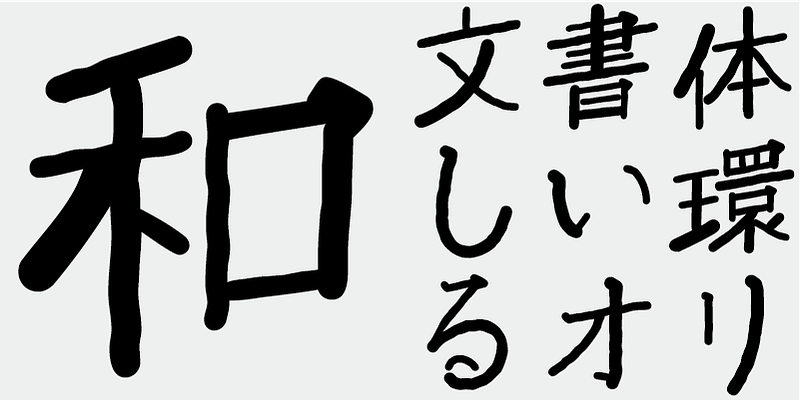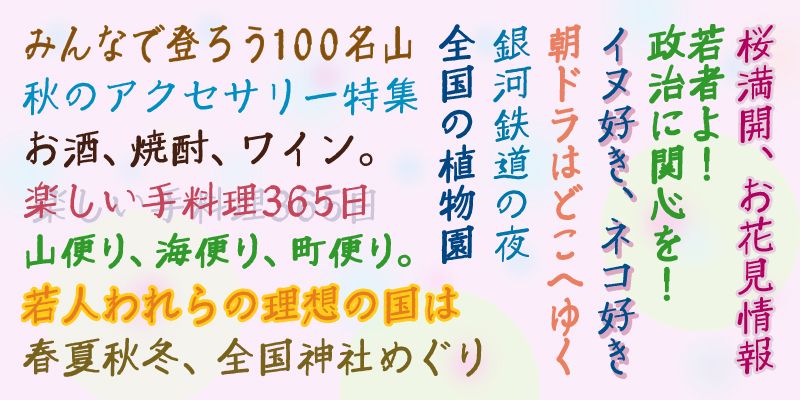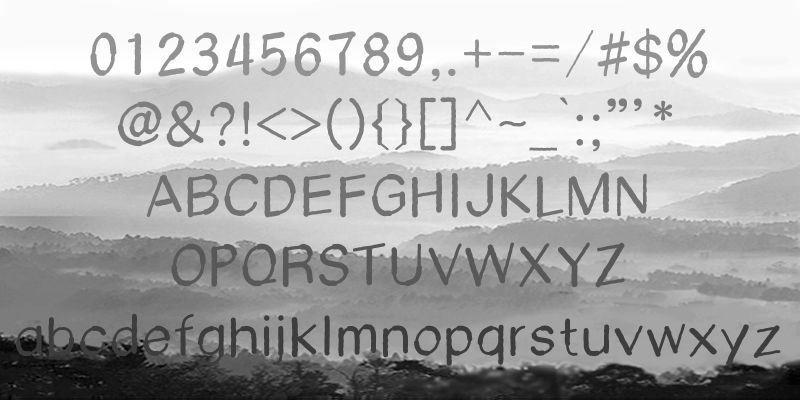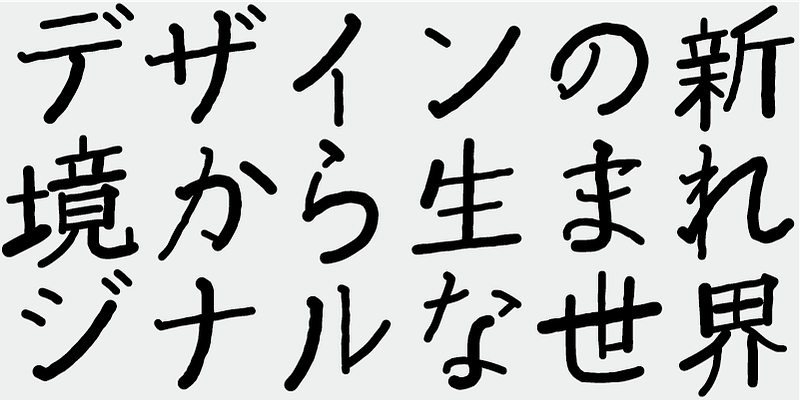
AB-KazunAon_f is effective for a wide range of purposes from body text composition to display typesetting in both horizontal and vertical writing modes, creating a sense of novelty. The typeface is intended to encourage people to communicate with each other in harmonious ways, providing a lively and warm atmosphere.
Its vertical strokes are straight up and down with right-ascending strokes running sideways. The upper and lower components of a character are shifted slightly horizontally, while left and right side components are shifted slightly vertically, so that the character shapes are more widely open.
Stroke widths are carefully adjusted according to a set of rules. Although this typeface is a Mincho style typeface, its subtly varying stroke shapes give it warmth and strength.